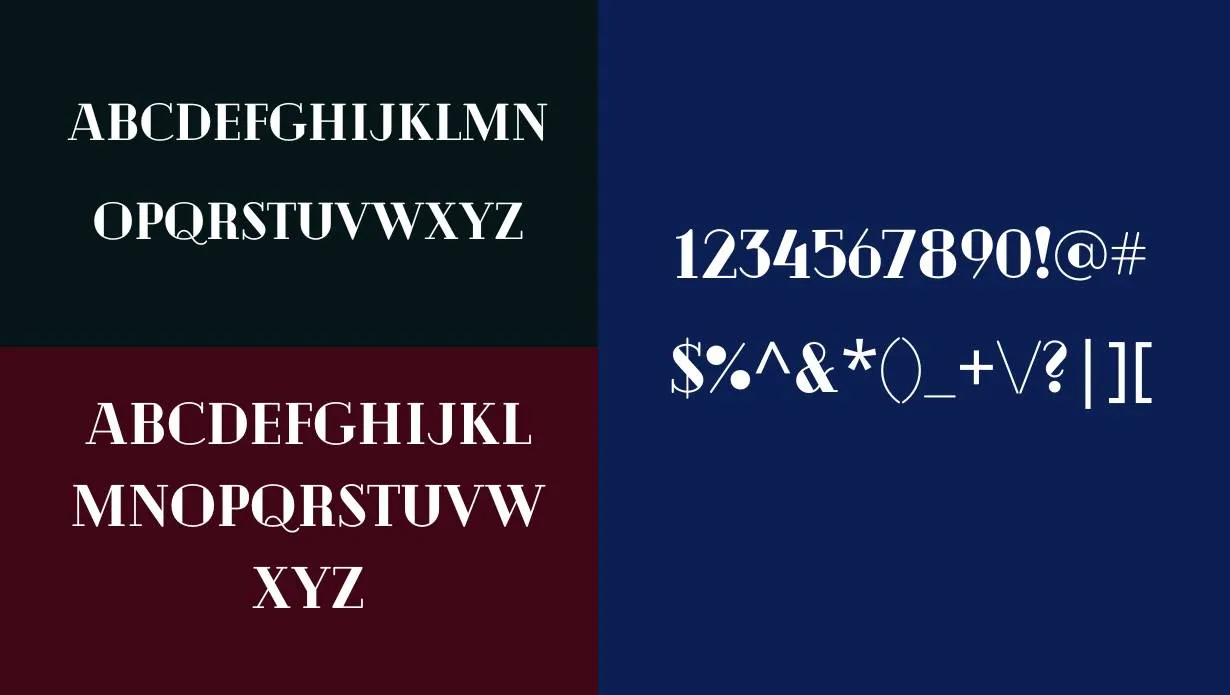
Cheque font is a trendy and contemporary typeface commonly utilized in formal documents, signs, or written material. Its crisp and strong letters are perfect for presenting a professional and refined appearance.
| Name | Cheque Font |
| Designer | Mirela Belova |
The weight of this font is generally bold, ensuring a strong and commanding presence. Its width is usually standard, making it ideal for both titles and longer blocks of text, such as in financial statements or certificates. When striving for a design that stands out and captures attention, the key is to pair this font with the konnect font.